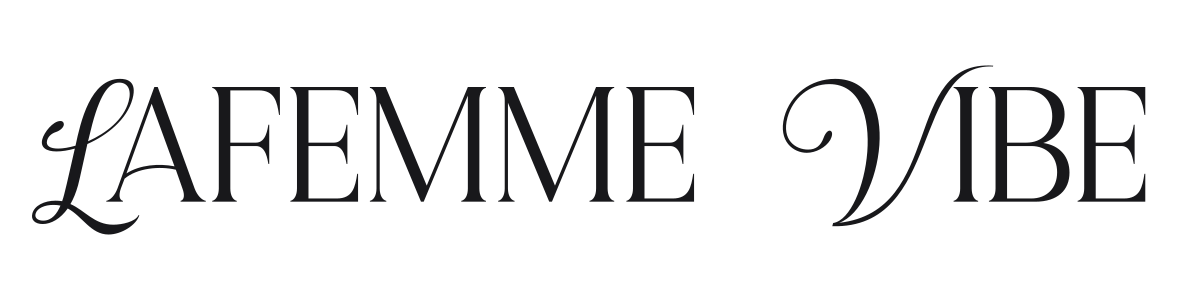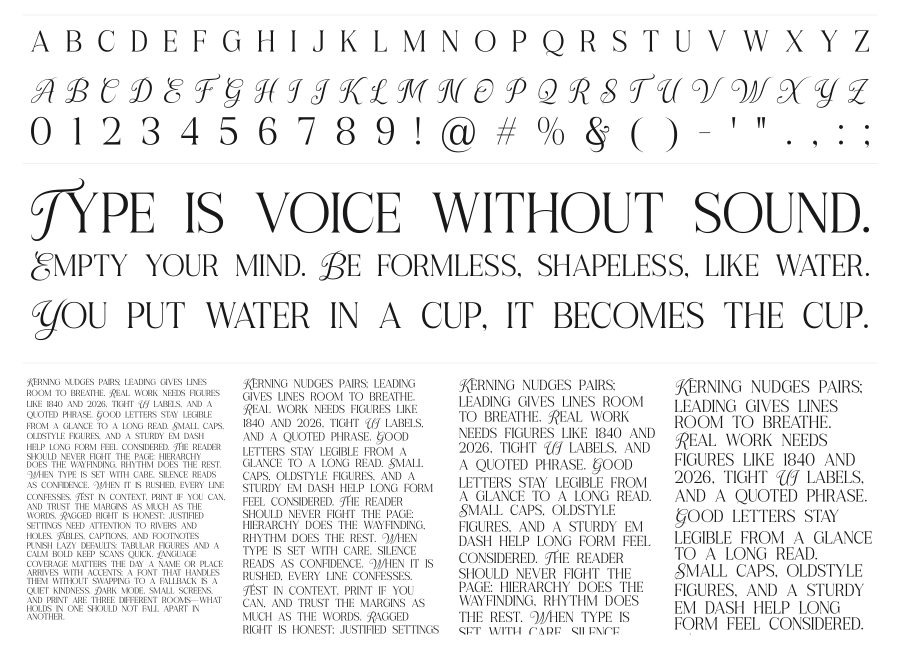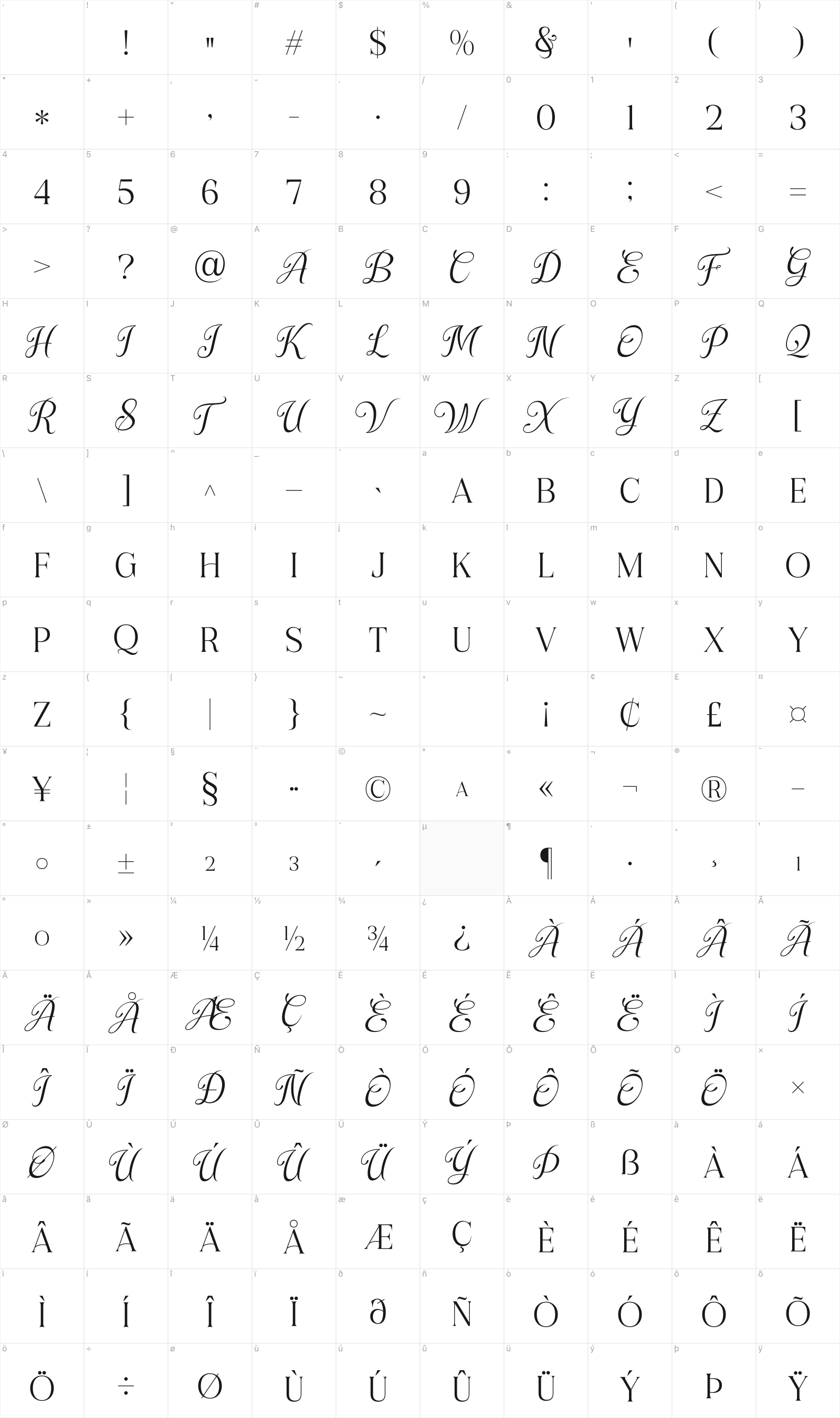
Lafemme Vibe
Lafemme Vibe is a high-contrast modern serif rooted firmly in the Didone tradition, with dramatic thin hairlines set against bold vertical strokes. The tall, open characters carry a couture sensibility that feels at home on magazine covers, beauty packaging, and brand identities built around femininity and sophistication. It has the kind of contrast that photographs beautifully at large sizes.